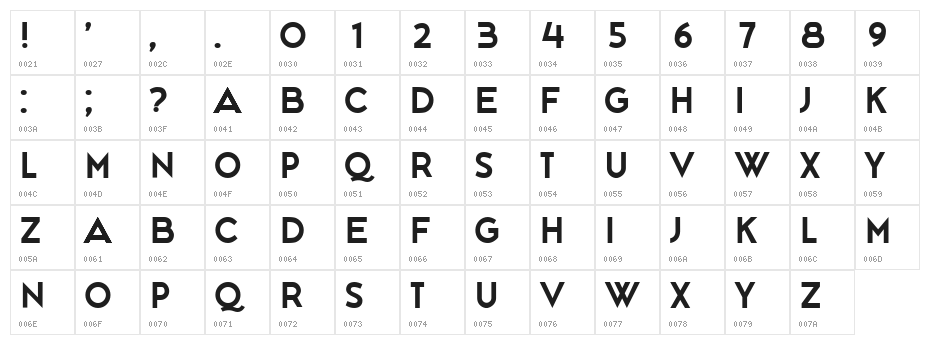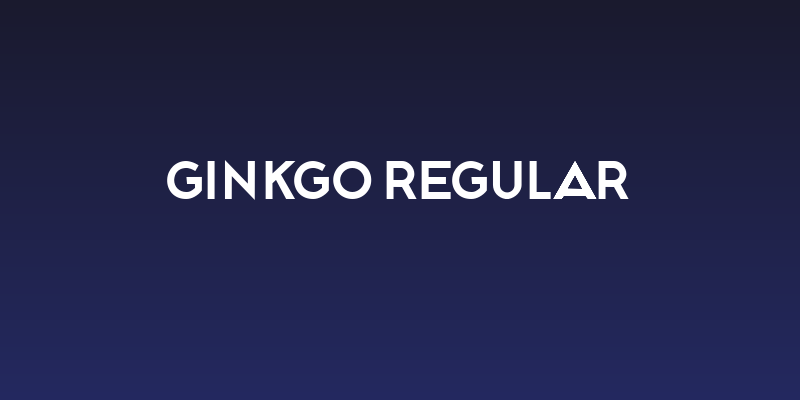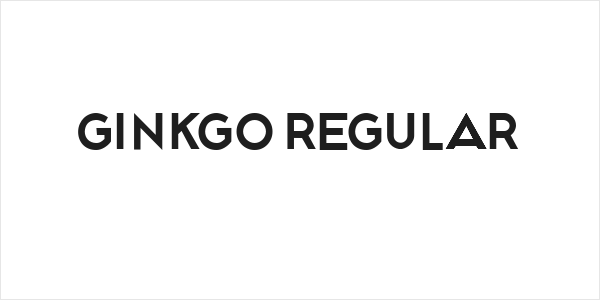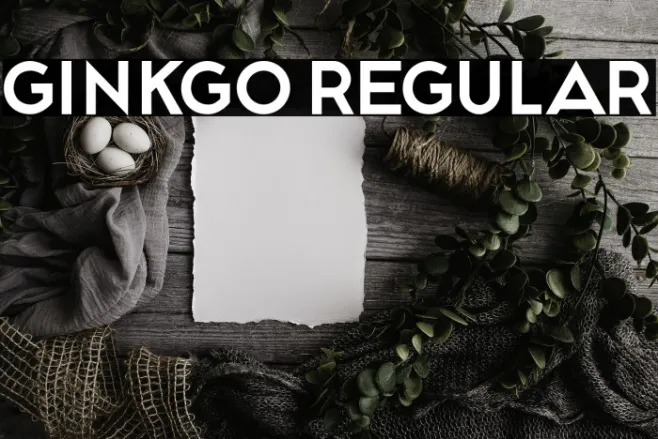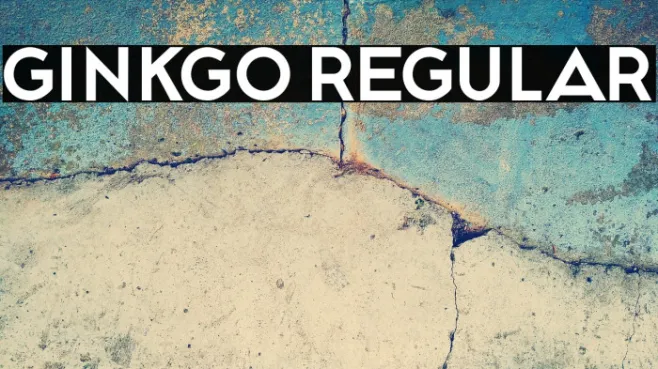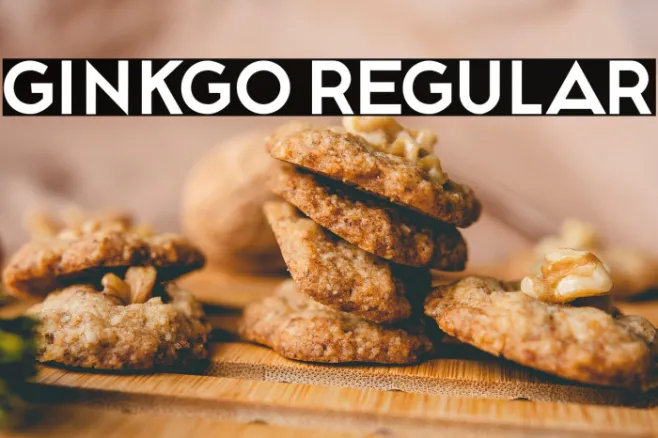
Ginkgo Regular Font
Ginkgo Regular Description
This font features a bold and modern design with clean, geometric lines that create a strong visual impact. The uppercase letters are uniform in height, while the lowercase letters maintain a consistent style, enhancing readability. The numerals are distinct and easy to distinguish, making them suitable for various applications. The special characters are designed to complement the overall aesthetic, adding versatility to the font. Its simplicity and clarity make it ideal for both digital and print media, ensuring legibility across different sizes and formats.
| Use Case | Headlines, Logos, Digital Media |
| Proposed Projects | Ideal for branding, advertising, headlines, and digital media. |